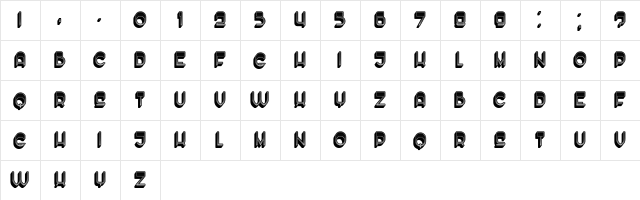
Enough Regular
Design Context for Enough Typeface
Enough is a composed and adaptable typeface that performs quietly and consistently across a wide range of design contexts.